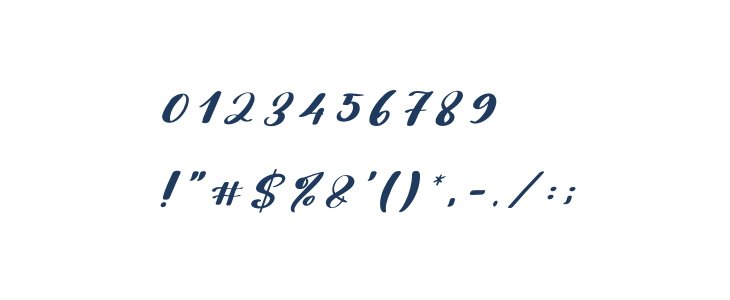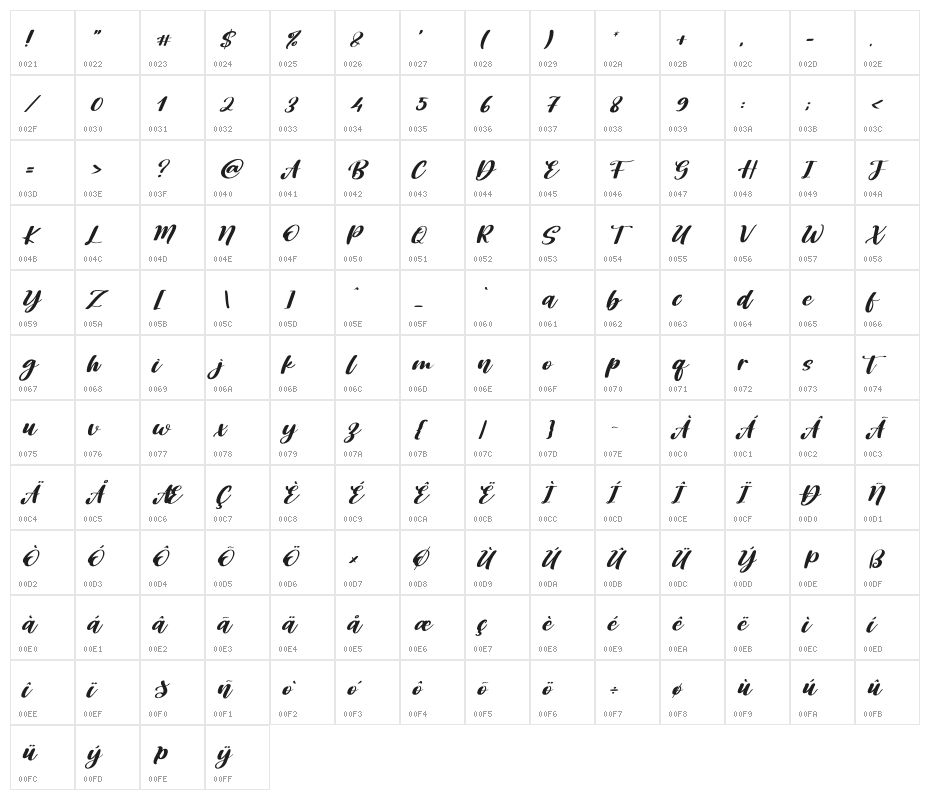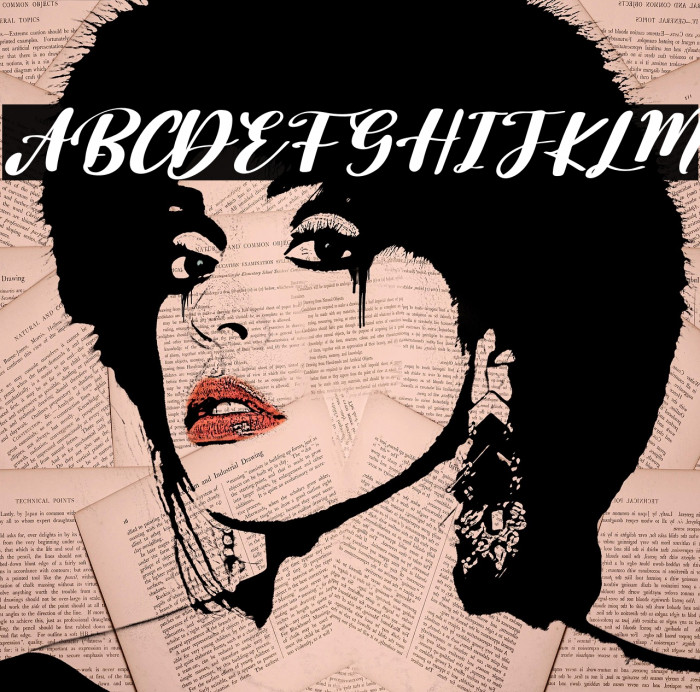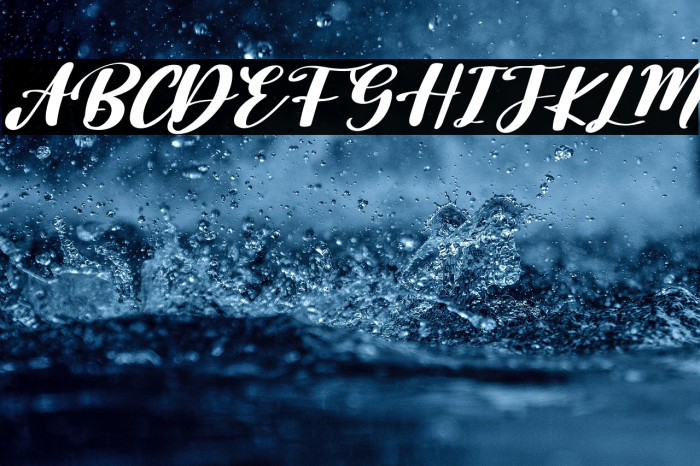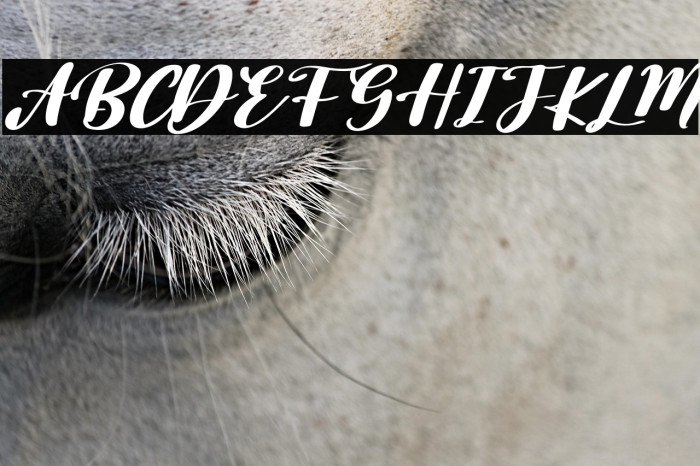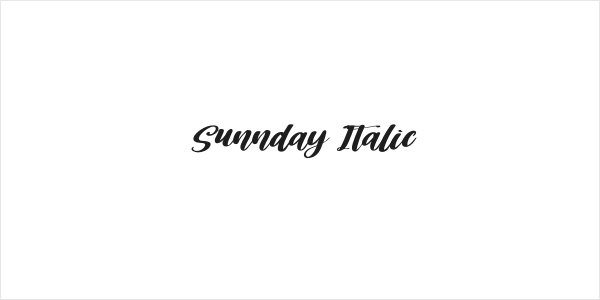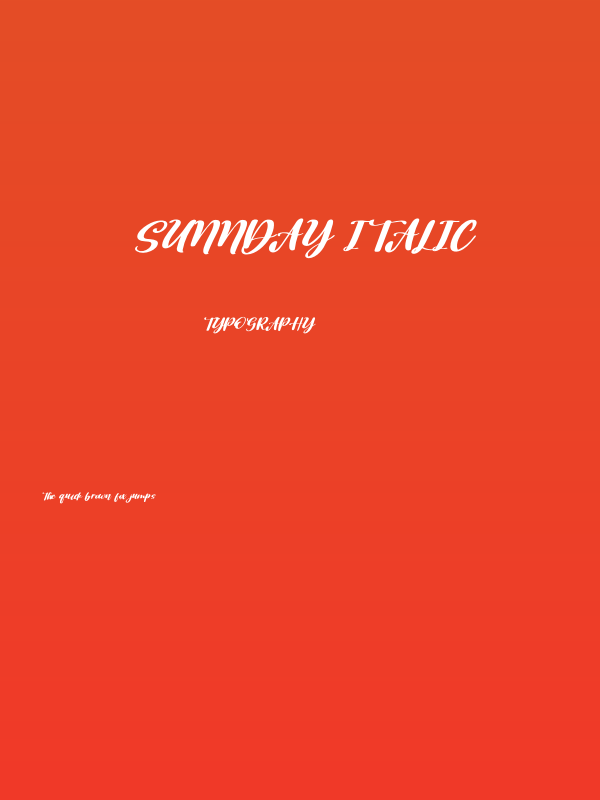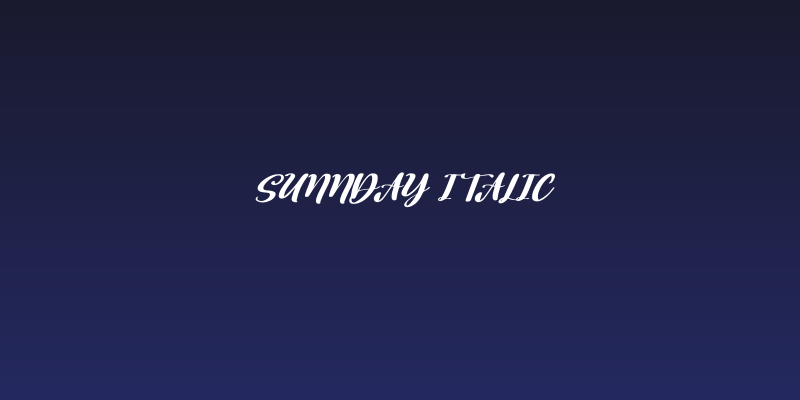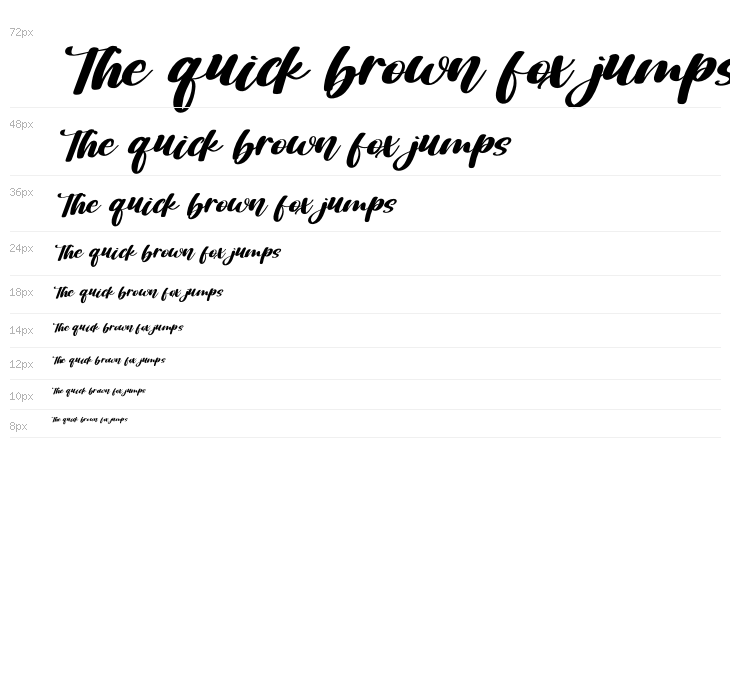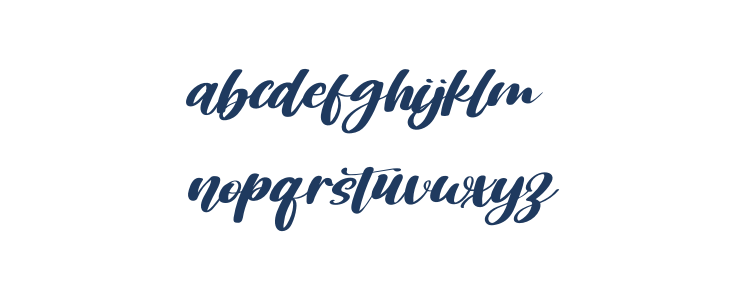
Sunnday Italic Font
Sunnday Italic Description
This font features a dynamic and flowing script style, characterized by its elegant and cursive letterforms. The strokes are smooth and connected, giving it a handwritten appearance. The uppercase letters are bold and prominent, while the lowercase letters maintain a consistent flow with slightly exaggerated loops and curves. The numbers and special characters are designed to match the overall aesthetic, ensuring a cohesive look. This font exudes a sense of sophistication and creativity, making it ideal for projects that require a personal touch.
Use CaseLogos, Invitations, Decorative text
Proposed ProjectsIdeal for wedding invitations, greeting cards, branding, and logo design.